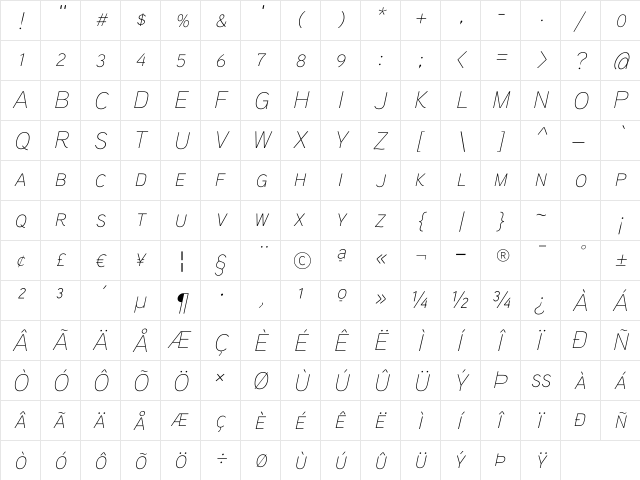
Aaux ProThin Italic SC Regular Font Preview
Design Context for Aaux ProThin Italic SC Typeface
Aaux ProThin Italic SC is a composed and adaptable typeface that performs quietly and consistently across a wide range of design contexts. Its italic angle brings a sense of urgency and motion to the letterforms. Its slender proportions lend an understated elegance to any composition.